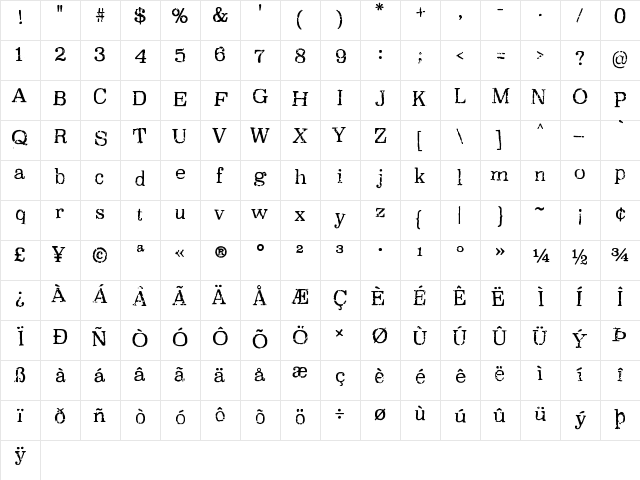
Oxeran Regular Font Preview
Oxeran Regular
Oxeran Regular Font Details
Design Context for Oxeran Typeface
Oxeran takes a measured approach to typography — its balanced proportions and neutral character make it a reliable workhorse for both digital and print work.